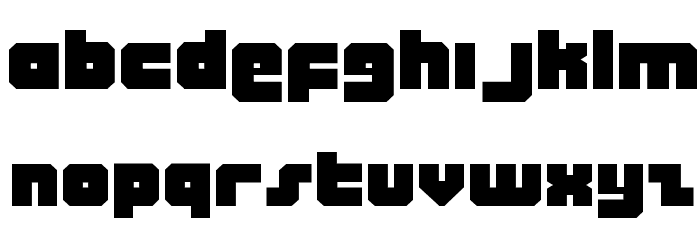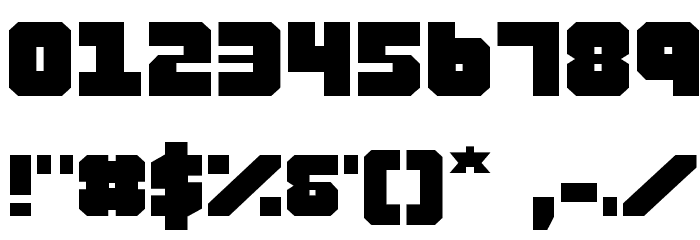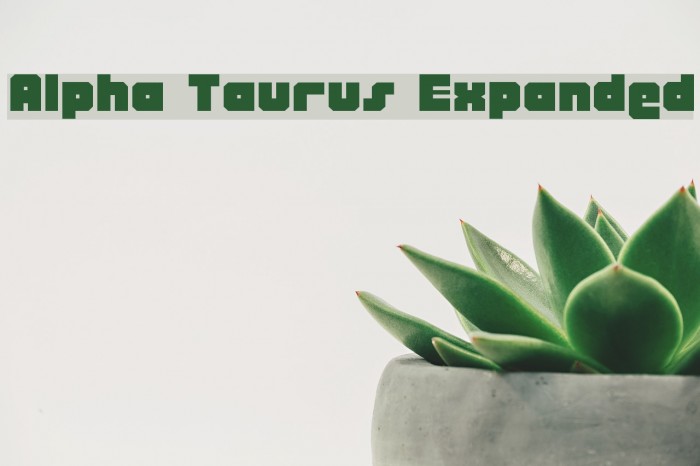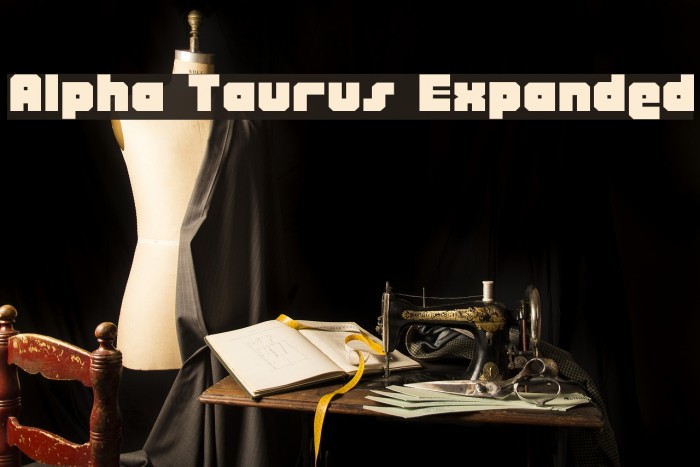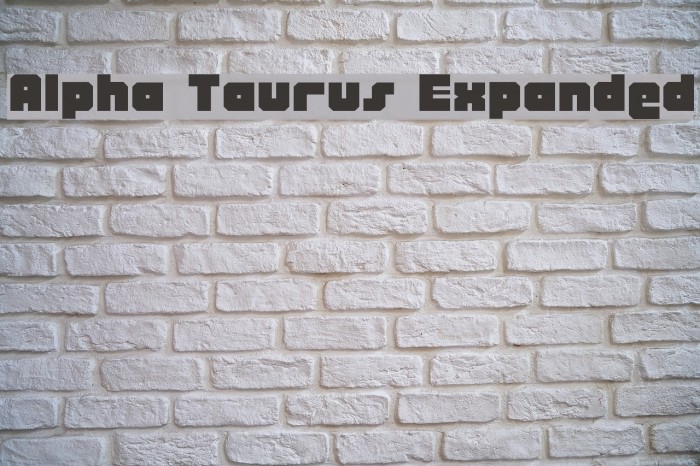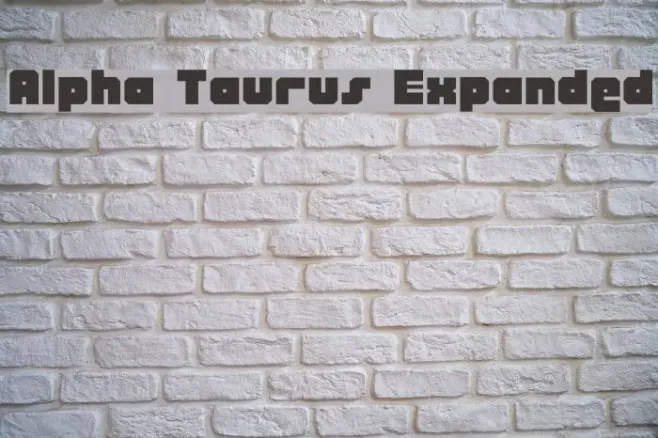
Alpha Taurus Expanded Font
This font features a bold and geometric design with a strong presence. The characters are blocky and robust, with a uniform thickness that gives them a powerful and commanding appearance. The edges are sharp and angular, contributing to a modern and industrial feel. The expanded width of the characters enhances readability and makes a striking visual impact. This font is well-suited for attention-grabbing headlines and titles, where a bold statement is desired. The consistent stroke weight and lack of contrast between thick and thin lines add to its solid and stable look.
A bold, geometric font with expanded width and a modern, industrial style.
- Proposed Projects: Ideal for branding, posters, signage, and any project requiring a strong, impactful typeface.